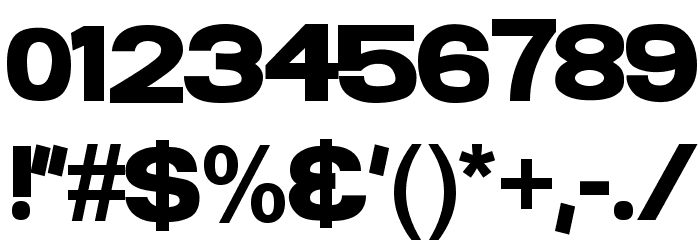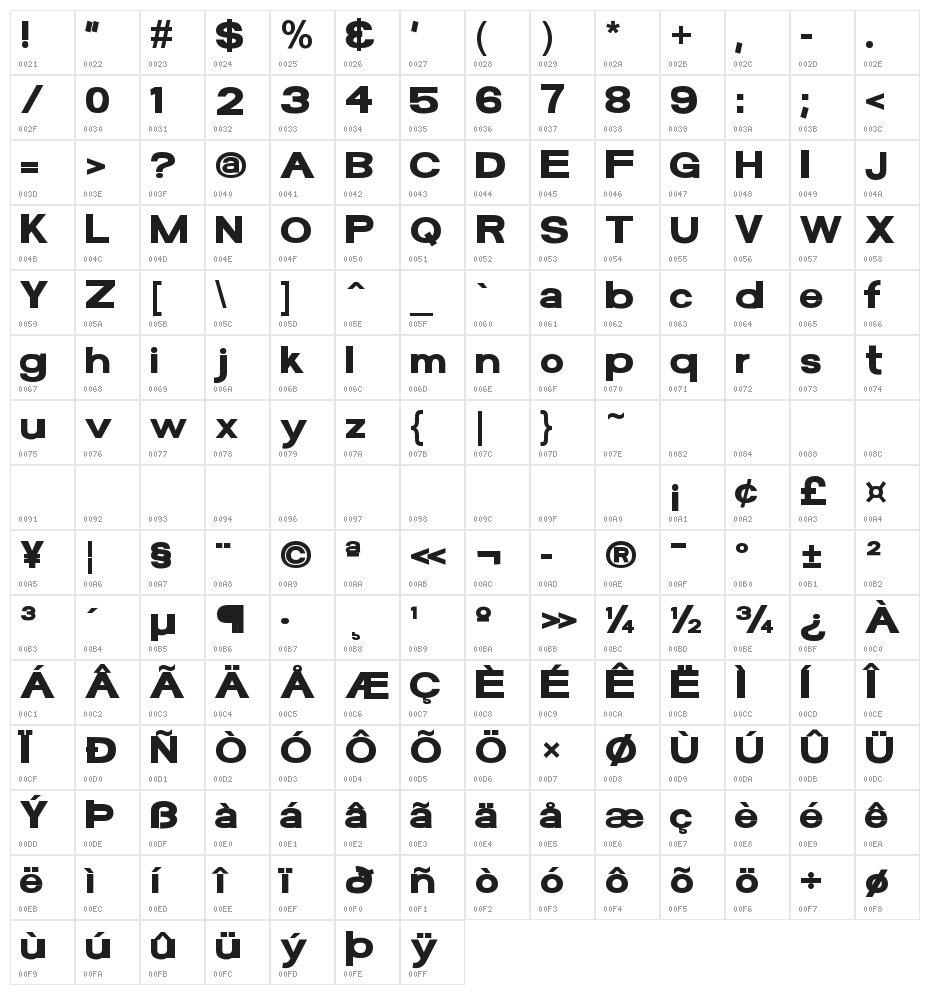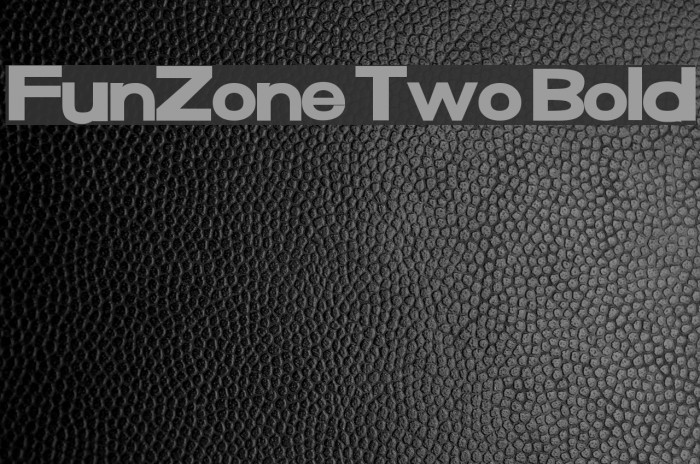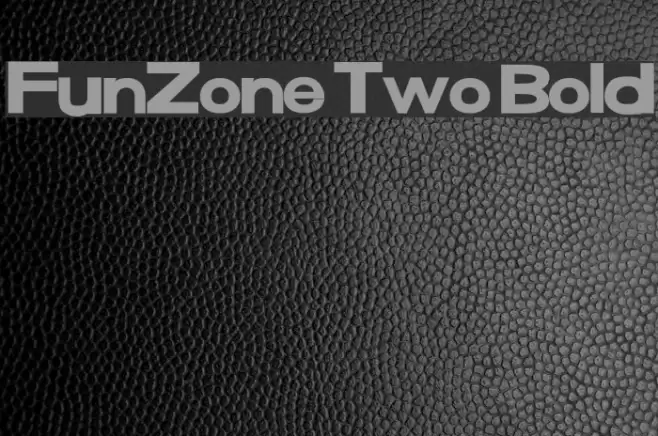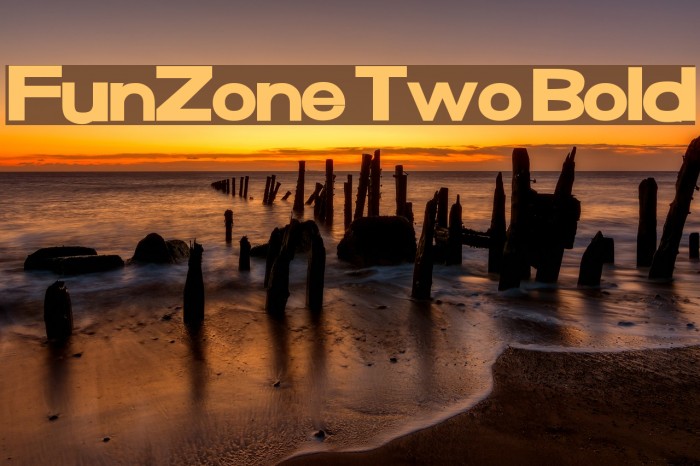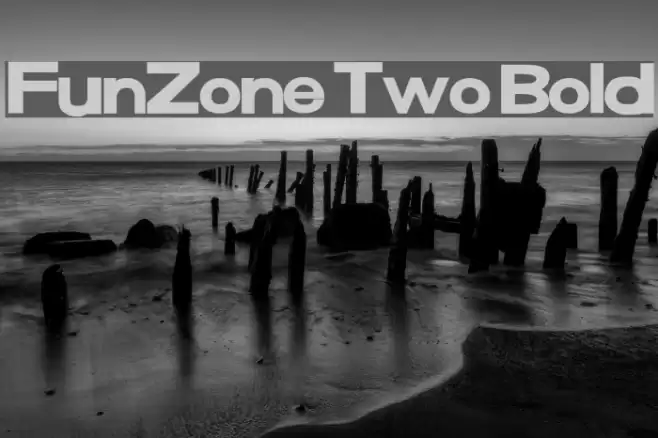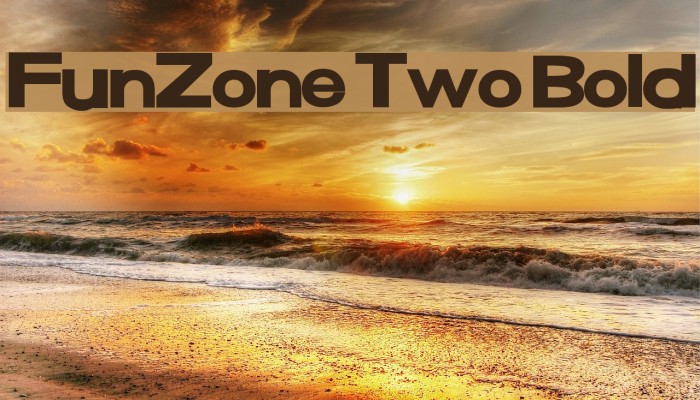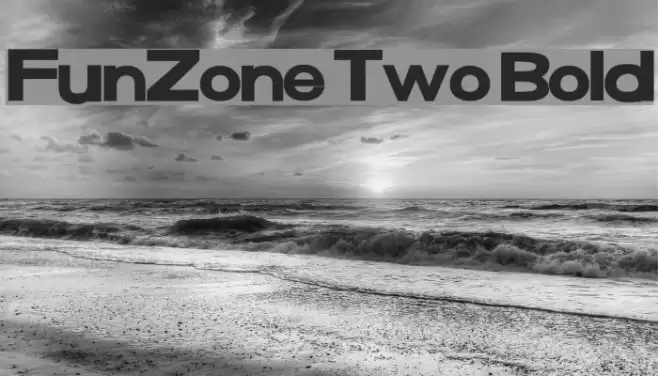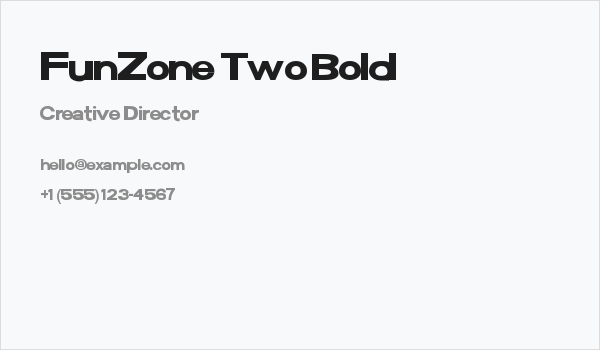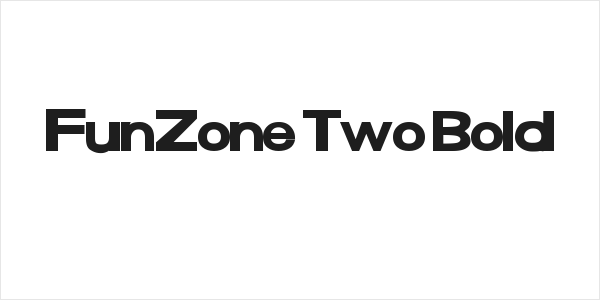
FunZone Two Bold Font
FunZone Two Bold Description
This font features a bold and modern aesthetic with clean, geometric lines and a strong presence. The uppercase and lowercase letters are well-proportioned, with a consistent stroke width that gives the typeface a uniform appearance. The numerals are clear and easy to read, making them suitable for various applications. Special characters are included, maintaining the same bold style, which enhances the font's versatility. The overall design is straightforward yet impactful, making it ideal for attention-grabbing headlines and branding projects.
| Proposed Projects | Ideal for branding, advertising, headlines, and digital content where a strong visual impact is needed. |